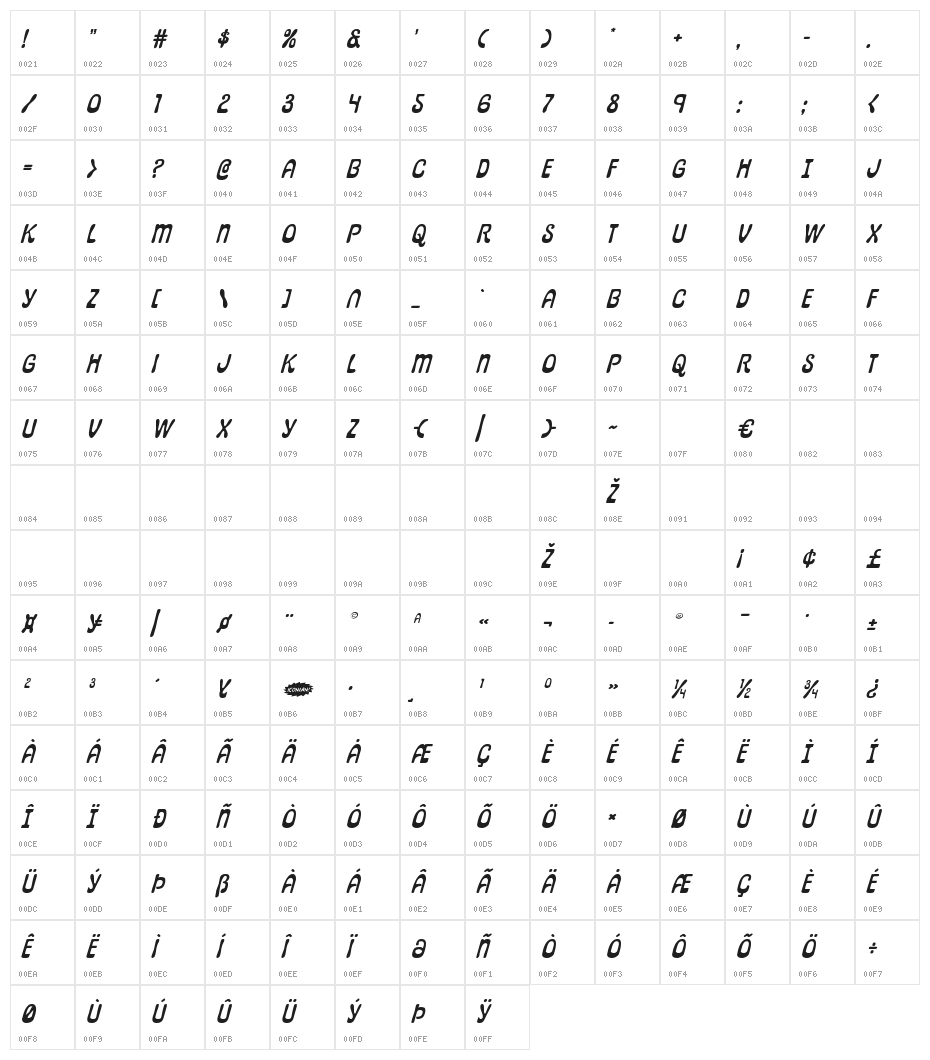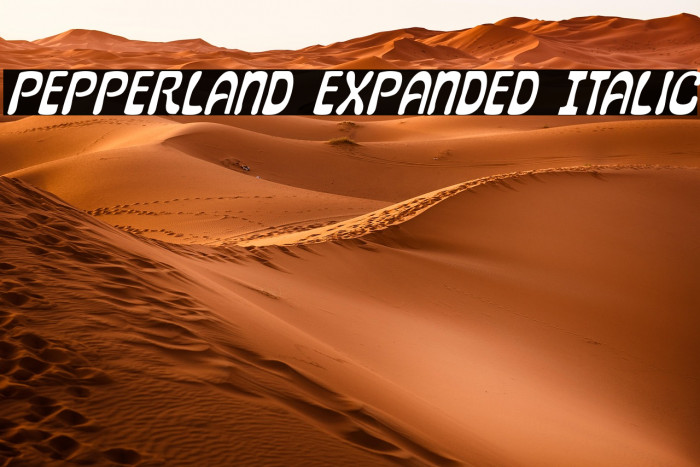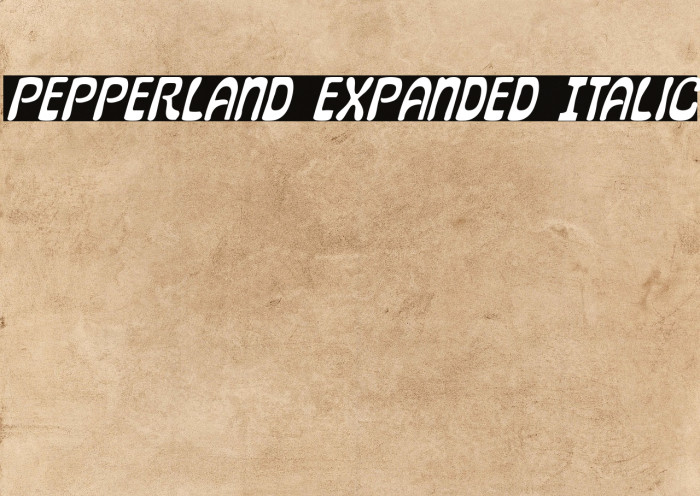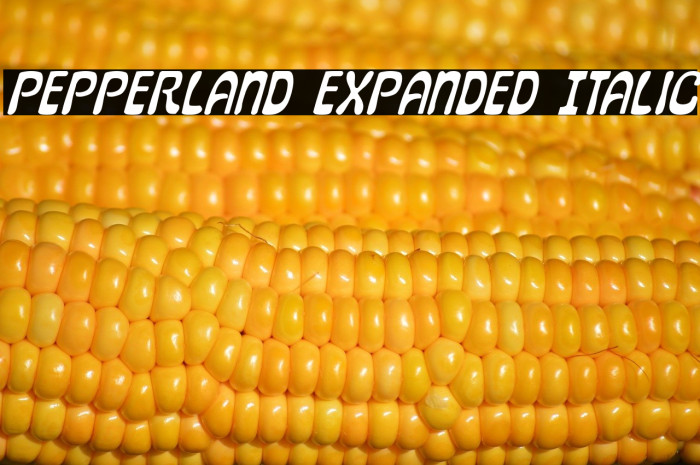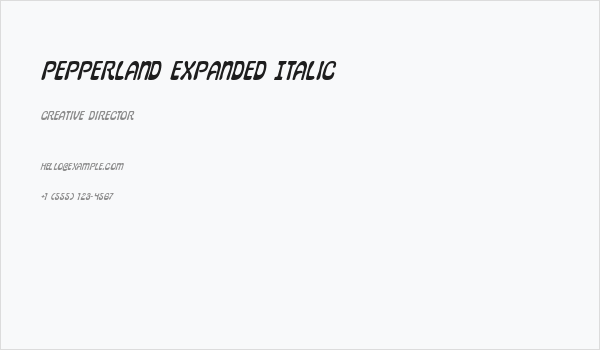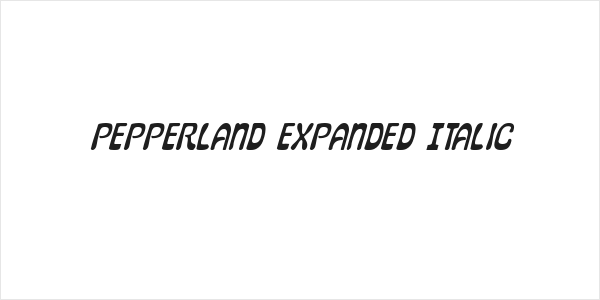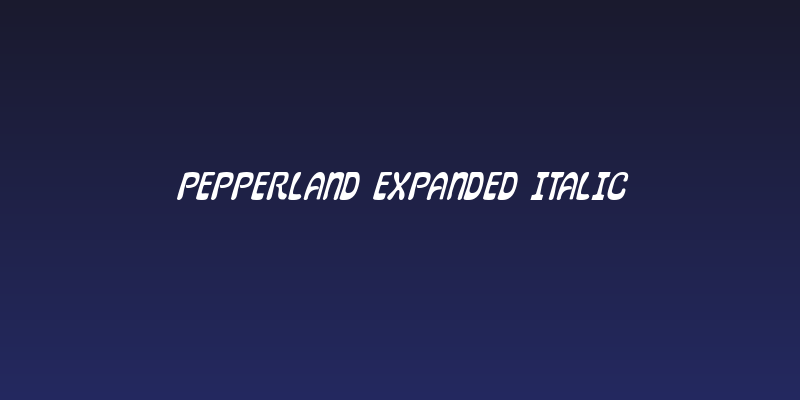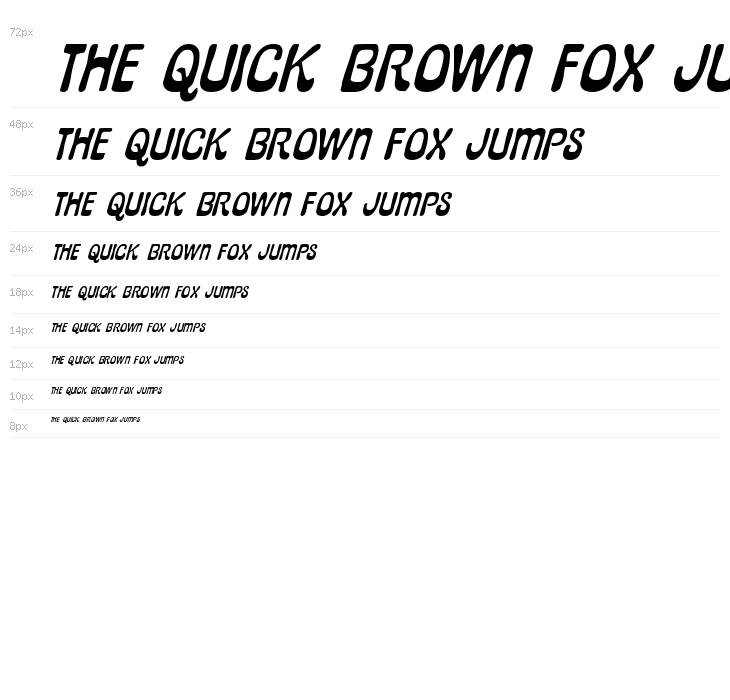
Pepperland Expanded Italic Font
Pepperland Expanded Italic Description
This font features a bold and dynamic style with an italic slant, giving it a sense of movement and energy. The characters are expanded, providing a wide stance that enhances readability while maintaining a unique aesthetic. The strokes are consistent in weight, contributing to a uniform appearance across all characters. The rounded edges and smooth curves add a friendly and approachable feel, making it suitable for a variety of design contexts. The numbers and special characters are crafted with the same attention to detail, ensuring they complement the alphabetic characters seamlessly. Overall, this font strikes a balance between boldness and elegance, making it versatile for both casual and formal applications.
| Proposed Projects | Ideal for branding, advertising, posters, and headlines where a strong, energetic presence is desired. |